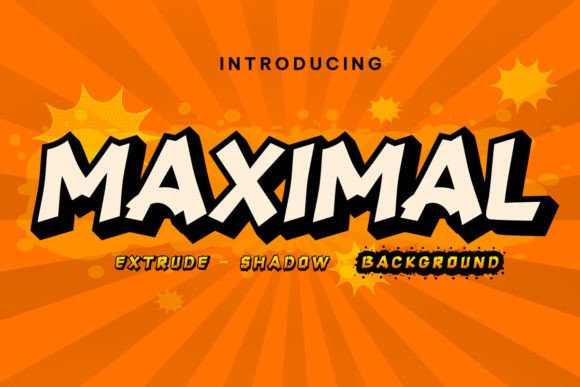
Introducing the Maximal Font - A Daring and Retro Masterpiece for Tattoo Design
Prepare to be captivated by Maximal Font, a retro and bold display font crafted specifically to ignite your tattoo designs. As a creation of FontCastle, this font exudes an urban and casual vibe that will elevate your artwork to dizzying heights. Maximal Font's charm lies in its ability to bring your tattoo designs to life, effortlessly capturing the essence of individuality and self-expression.
This extraordinary font boasts PUA encoding, granting you the power to unleash a world of glyphs and swashes with unparalleled ease. Unleash your creativity and let Maximal Font guide you on a journey of artistic exploration, transforming your tattoo designs into breathtaking works of art.
Step into a realm where boldness and retro aesthetics collide, where Maximal Font reigns supreme. This font is a testament to the boundless power of self-expression, allowing you to inscribe your innermost thoughts, dreams, and aspirations onto the canvas of your skin. Join the ranks of those who dare to be different, who embrace the allure of Maximal Font to create tattoo designs that speak volumes.
Indulge in the nostalgia of yesteryear while embracing the audacity of today with Maximal Font. Let your imagination run wild as you craft tattoo designs that push the boundaries of creativity, leaving an enduring legacy of self-expression and artistic prowess.
Seize this opportunity to redefine the art of tattoo design with Maximal Font. Its captivating allure will leave you spellbound, longing for more. Embrace the boldness, revel in the retro vibes, and let your creativity soar to new heights. Maximal Font awaits, ready to unleash your inner artist and transform your tattoo designs into masterpieces.